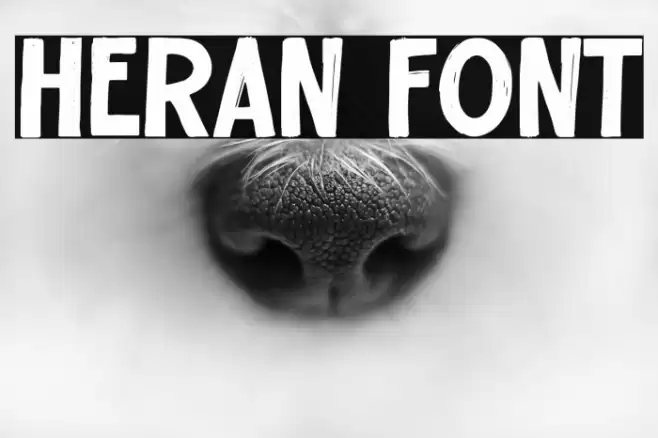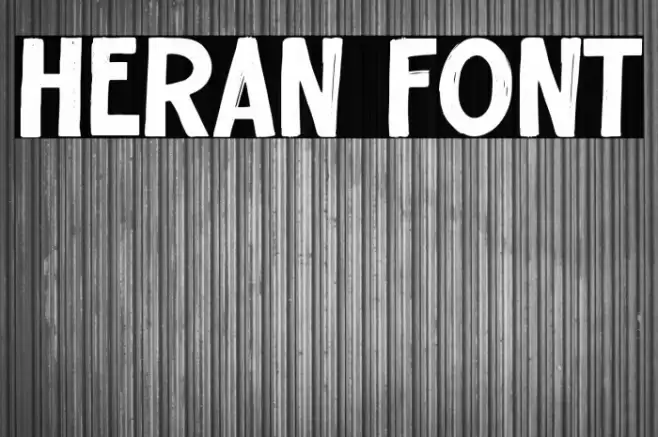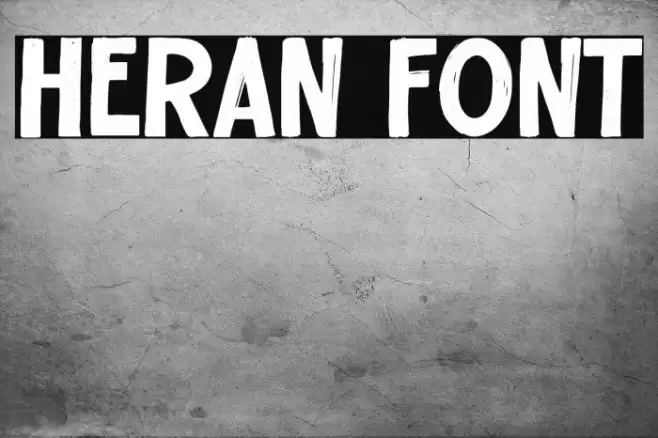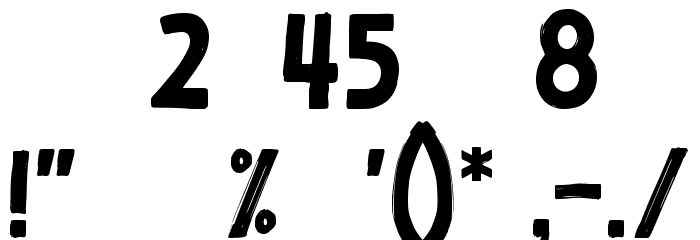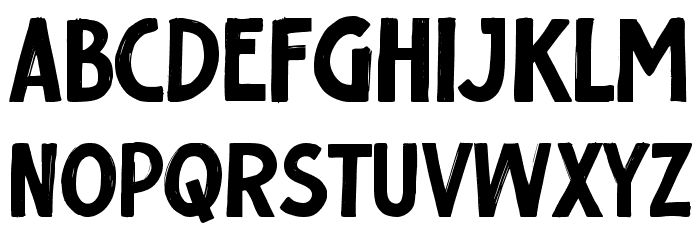
Heran Font
Heran Description
This font features a bold and expressive style with a hand-drawn appearance. The letters are thick and slightly irregular, giving it a playful and informal look. The uppercase and lowercase characters maintain a consistent weight, while the numbers and special characters are bold and prominent. The strokes are uneven, adding to the handcrafted feel, and the overall design is eye-catching and dynamic. This font is ideal for projects that require a personal touch or a creative flair.
A bold, hand-drawn font with a playful and expressive style from Uncategorized fonts.
- Proposed Projects: Great for posters, children's books, creative branding, and social media graphics.